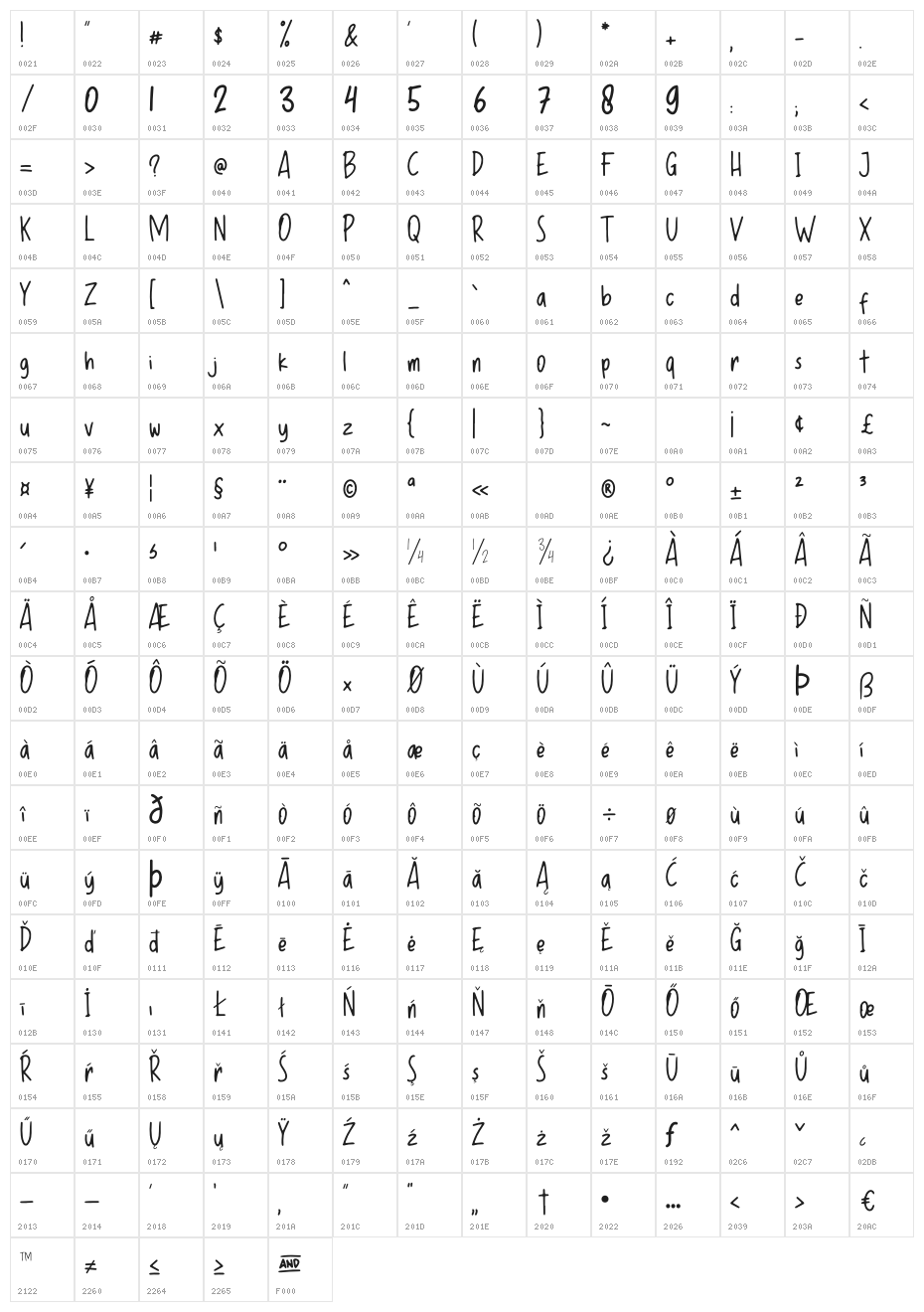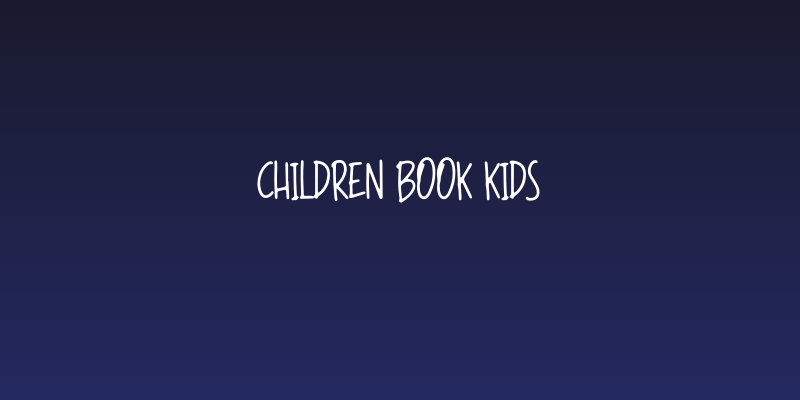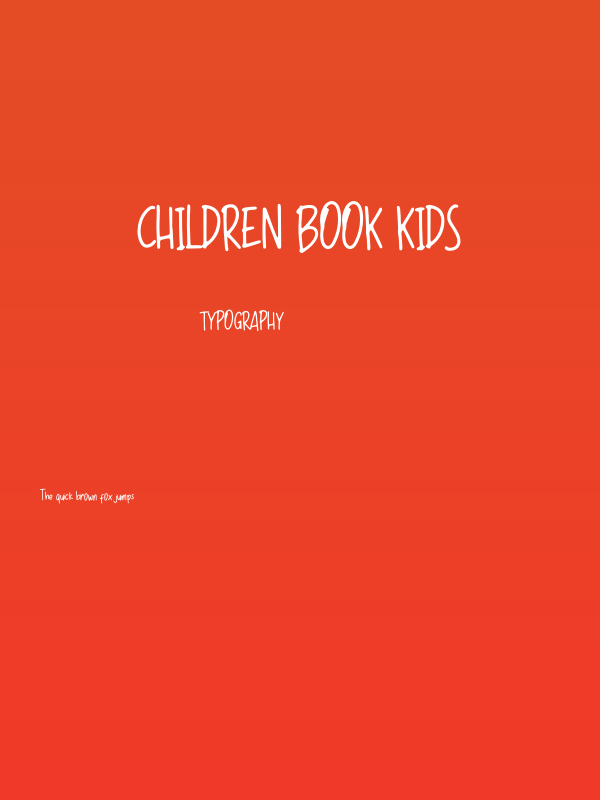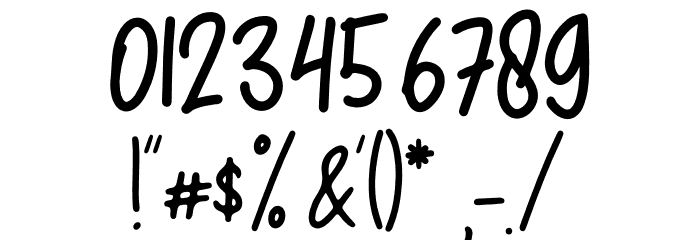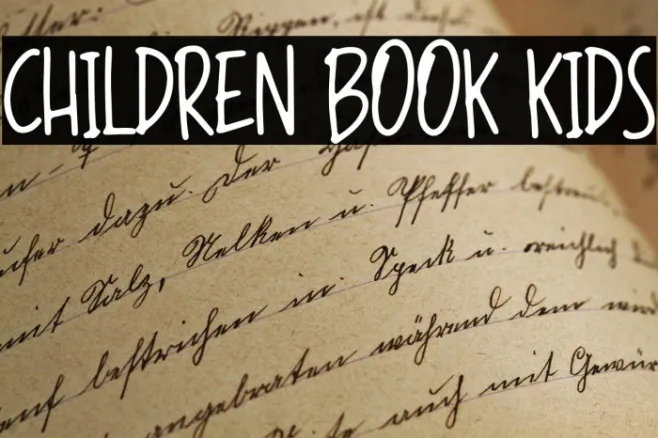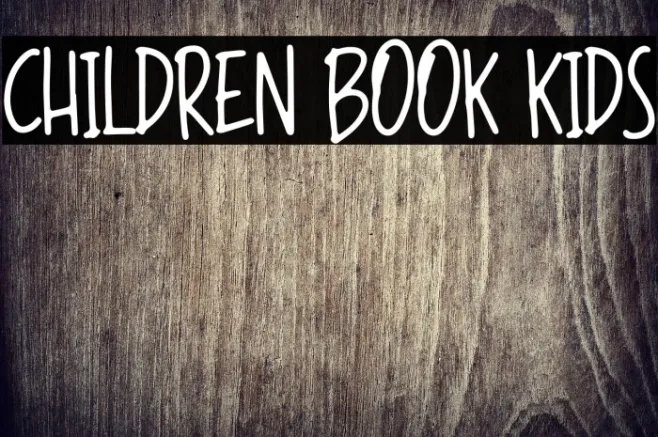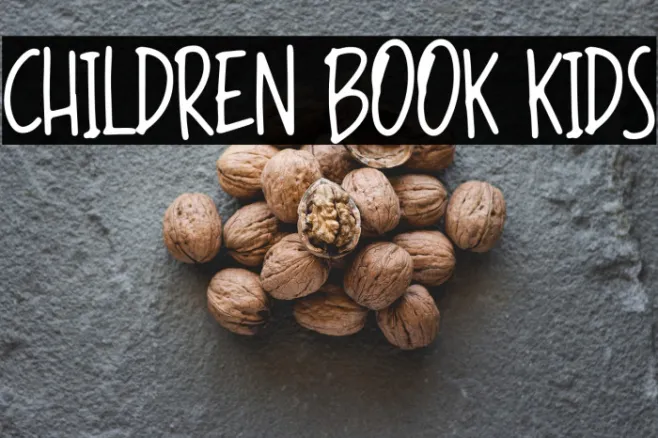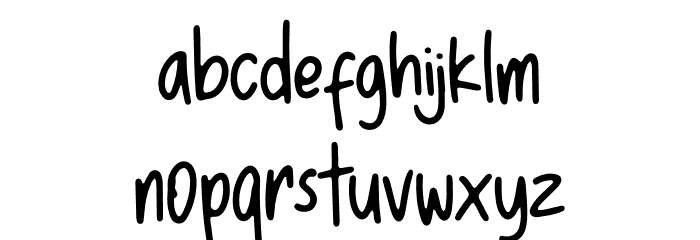
CHILDREN BOOK KIDS Font
CHILDREN BOOK KIDS Description
This playful and whimsical font features a handwritten style that is both approachable and friendly. The letters are slightly irregular, giving it a charming, childlike quality that is perfect for capturing the imagination. The uppercase and lowercase letters are well-balanced, with a consistent stroke width that maintains readability while adding a touch of fun. The numerals and special characters are designed to match the playful aesthetic, making it versatile for various creative projects. The overall look is casual and inviting, ideal for projects aimed at children or those seeking a lighthearted tone.
| Use Case | Headlines, Logos, Children's books |
| Proposed Projects | Ideal for children's books, educational materials, playful branding, and creative invitations. |